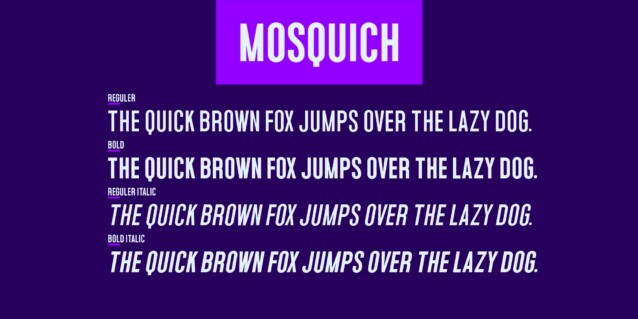
Mosquich Font
Mosquich Font is a sans-serif display font created by Fallengraphic with a unique style with a little improvisation in the uppercase mode. This font is perfect for anything related to the future, illustration, poster, title, logo, magazine, or various other design, you will get a different experience and stand out in your designs.